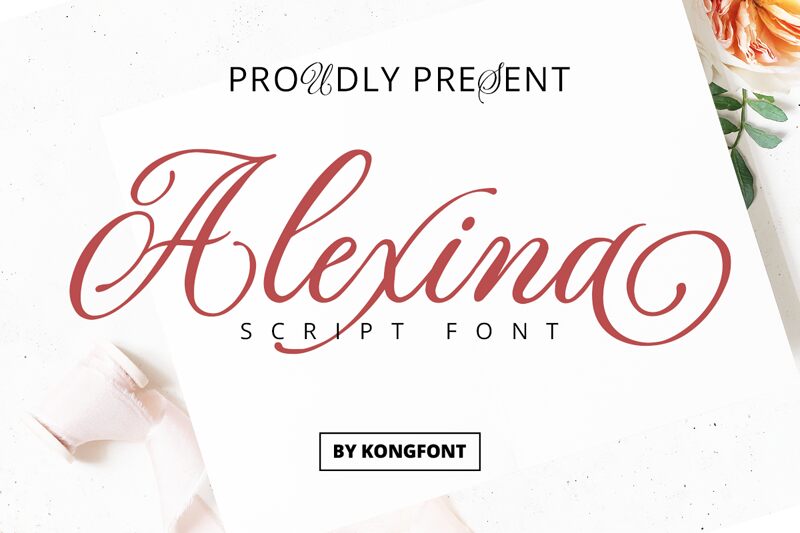
Alexina
Alexina font by Kong Font is a sophisticated free calligraphy font with graceful and flowing letter designs. Elegant and stylish, they carry a decorative appearance suitable for those glamorous projects that bring out Alexina’s eye-catching letters.
Alexina would look marvelous on a wedding invitation or greeting card. Use it to display the name of a cosmetics/styling brand, to elaborate headlines for issues related to lifestyle or fashion, or create decorated artwork for art exhibitions, events, and photography businesses. The stylish features can also decorate books covers.